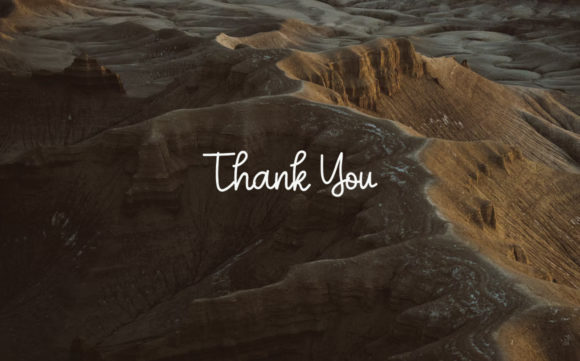
Introduction to Santa Gnome Font
Enter the Santa Gnome Font, a lovely script font that’s sure to put a smile on your face. With its charming, playful characters that seem to dance along the baseline, this font is perfect for adding a touch of whimsy to your most creative ideas. And the best part? It’s available for free download, making it an accessible addition to any design project.
Key Features of Santa Gnome Font
- High-quality, hand-drawn design with a unique and playful feel, perfect for creative projects.
- Unique characteristics include a whimsical, festive feel, making it perfect for holiday-themed designs and projects.
Honest Review: Santa Gnome Font
I recently stumbled upon the Santa Gnome Font, and I must say, it’s a delightful addition to my design resource library. As a designer, I’m always on the lookout for high-quality fonts that can elevate my creative projects.
The Santa Gnome Font is a free download, which is a huge plus in my book. It’s always exciting to discover a well-designed font that won’t break the bank. The font itself is a fun, whimsical script that’s perfect for holiday-themed projects or any design that requires a touch of festive flair.
- ✨ High-quality design: The font is well-crafted and looks great at various font sizes.
- ⚠️ Limited font styles: The Santa Gnome Font only comes in a few different styles, which might not be suitable for all design projects.
- ⚠️ Not suitable for formal projects: The font’s playful design might not be the best choice for formal or professional projects.
Overall, I think the Santa Gnome Font is a great addition to any designer’s library. While it may have some limitations, its high-quality design and free download make it a valuable resource for creative projects.
The Santa Gnome Font is a unique and festive design resource that can add a touch of holiday cheer to any creative project. This high-quality font is available for free download and features a transparent background, making it easy to incorporate into your designs.
To get the most out of the Santa Gnome Font, be sure to experiment with different font sizes, colors, and combinations to create a unique and eye-catching design. You can also use this font in conjunction with other design elements, such as images and graphics, to create a cohesive and festive look.
Common Use Cases for Santa Gnome Font
The Santa Gnome Font is perfect for a variety of creative projects, including holiday cards, gift tags, social media graphics, and party invitations. You can also use this font to create a variety of other designs, such as holiday decorations, gift wrapping paper, and more.